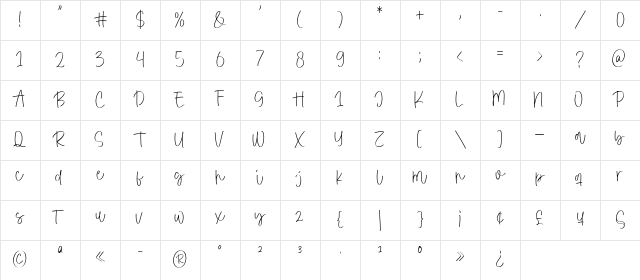
Grand Bakaw Regular Free Font
Grand Bakaw Regular
Design Context for Grand Bakaw
Grand Bakaw is a composed and adaptable typeface that performs quietly and consistently across a wide range of design contexts.
Pro Tip: Use Grand Bakaw in both headline and body roles to test its range before committing to a single application.